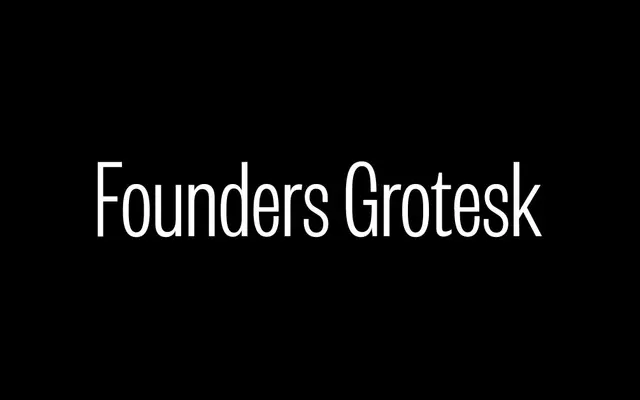
Founders Grotesk X-Condensed
Klim Type Foundry · Kris Sowersby · 2011
Founders Grotesk X-Condensed specimen from Klim Type Foundry
An extra-condensed grotesque inside the Founders Grotesk system, drawn for posters, mastheads and tight vertical headlines.
The extra-condensed cut of Founders Grotesk, by Kris Sowersby, narrower again than the Condensed and tuned for posters, mastheads and stacked headlines. Five weights from Light to Bold sit beside the standard Founders Grotesk, Text, Condensed and Mono cuts, sharing the same lineage of Miller & Richard's Grotesque series, Caslon's Doric and Helvetica's Halbfett headline metal cuts. The cut culture studios reach for when a grotesque has to set a long word in a short column without thinning the weight.
Klim classifies it as Modern: Lineal/Grotesque; the extra-condensed cut of Founders Grotesk, sharing the family's roots in Miller & Richard's Grotesque series, Caslon's Doric and Helvetica's Halbfett.